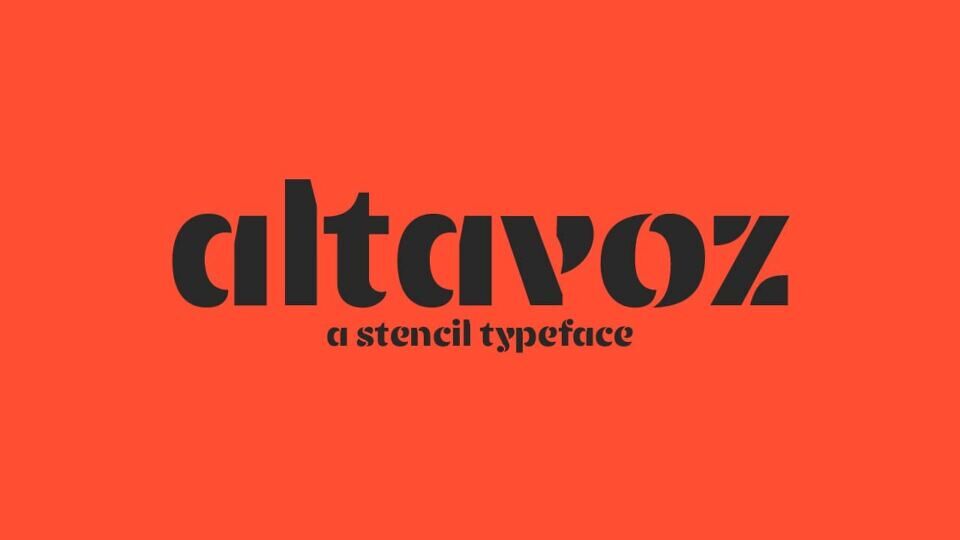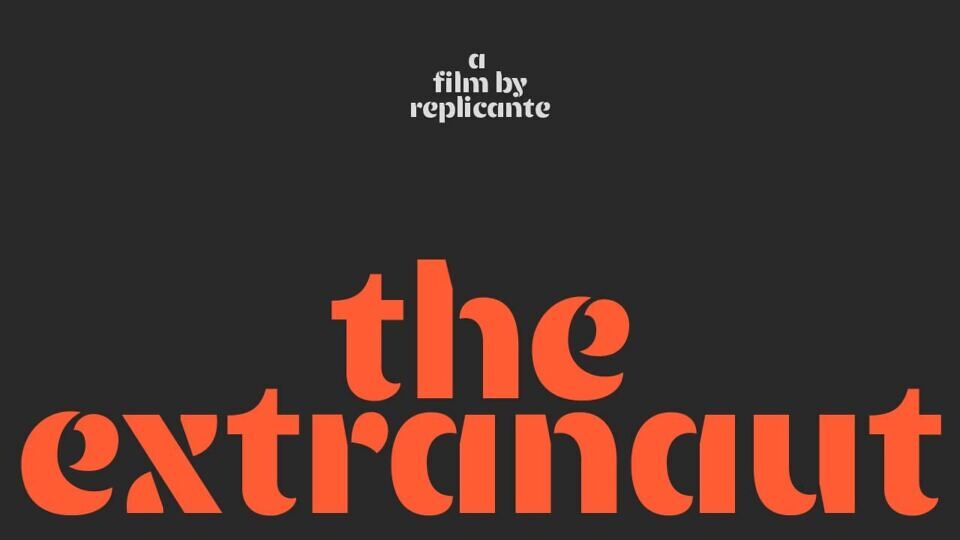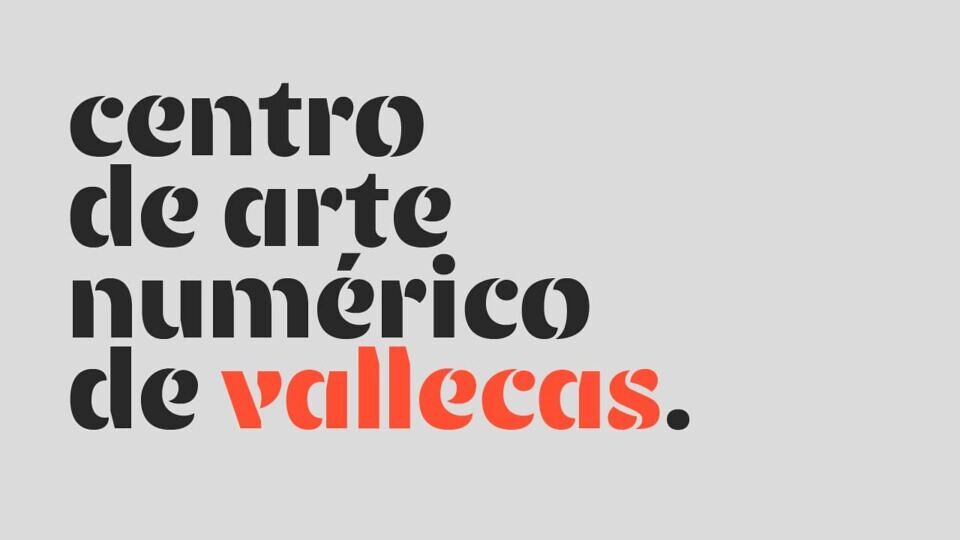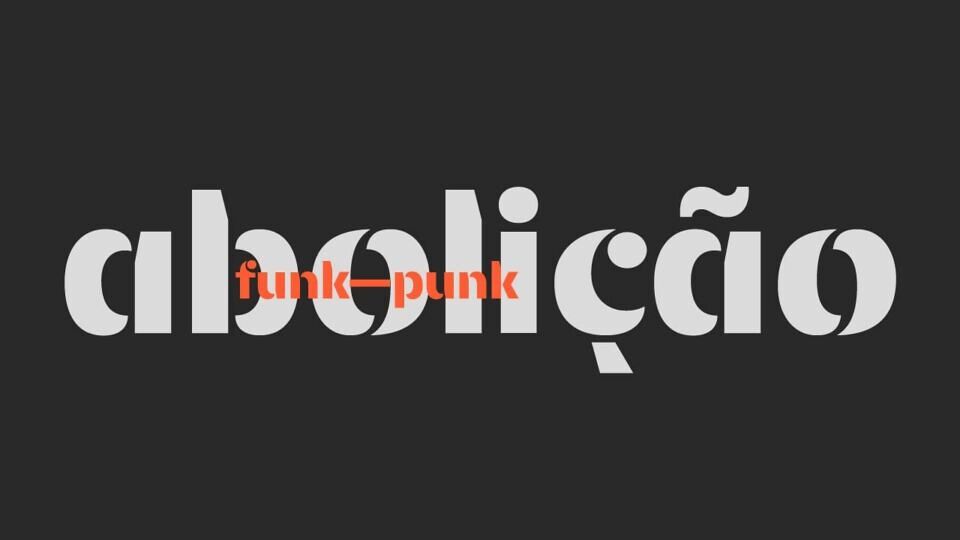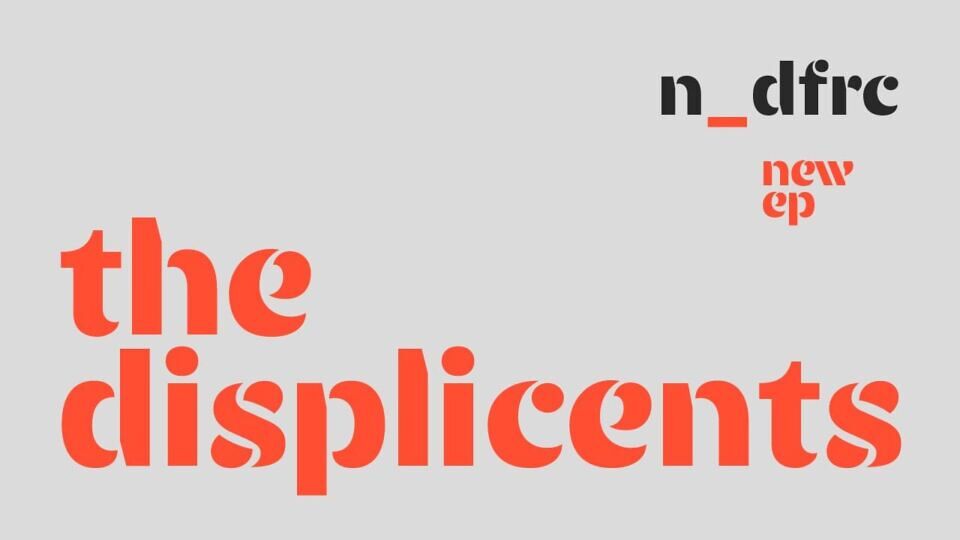
Altavoz Font
ALTAVOZ is a stencil typeface made by the streets. Inspired by the social protests in Colombia. It aims to be a stylistic alternative within stencil typography.
It is sans serif and generates each character, each glyph. It is based on the contrast between curved and straight lines.